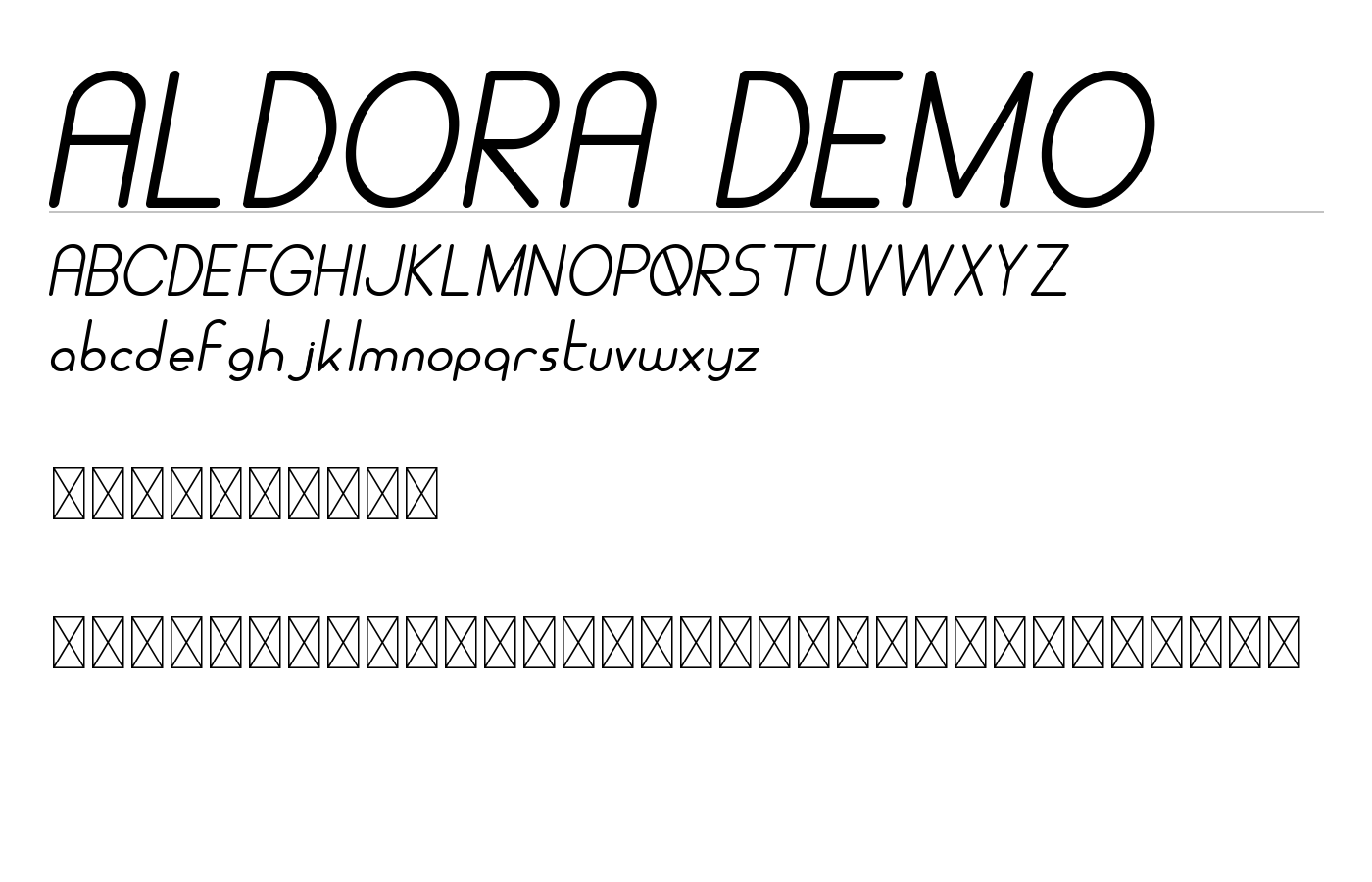
Aldora Demo is a sleek, modern sans serif font characterized by its thin, slightly condensed letterforms and subtle geometric influence. Its narrow strokes and elegant italic style give it a sophisticated yet approachable feel, making it ideal for contemporary branding, editorial headlines, and stylish digital interfaces where a clean and refined look is desired. This font’s distinctive simplicity lends itself well to fashion, technology, and lifestyle projects seeking a minimalist and modern aesthetic.
ALDORA DEMO Font
About ALDORA DEMO Font
| Designer | M Nouval |